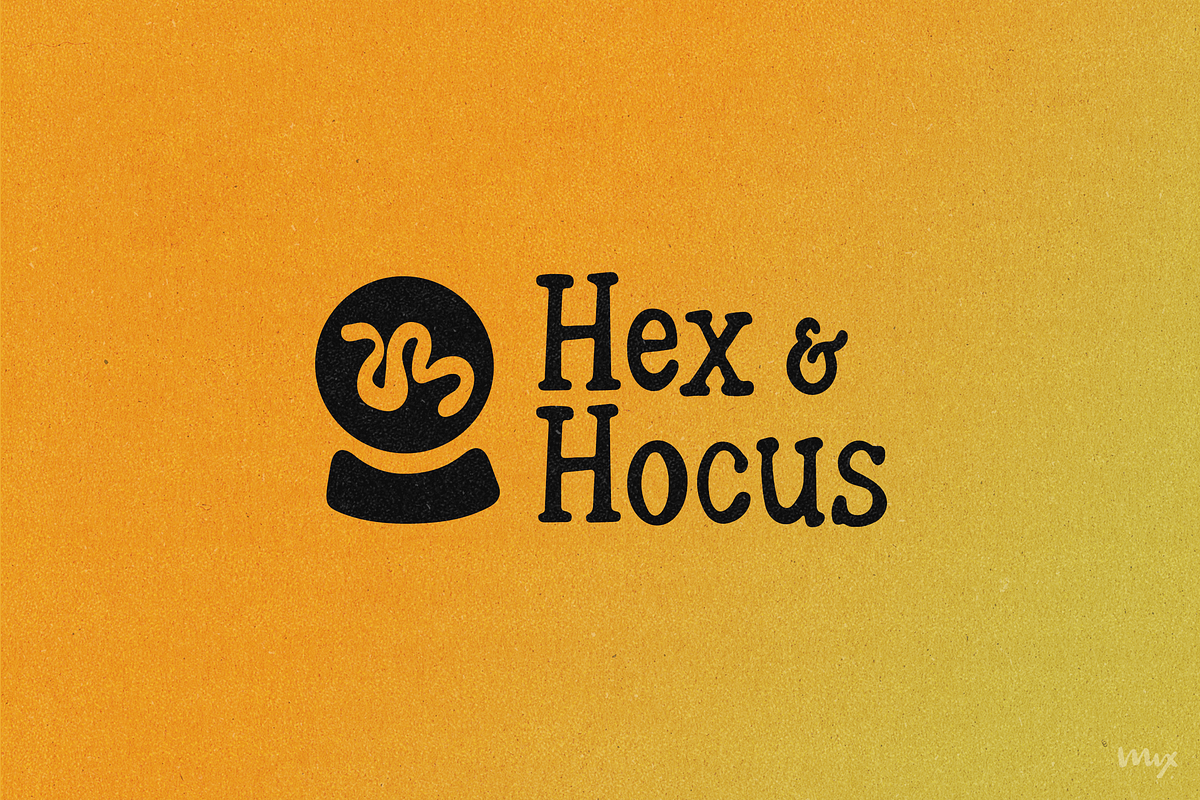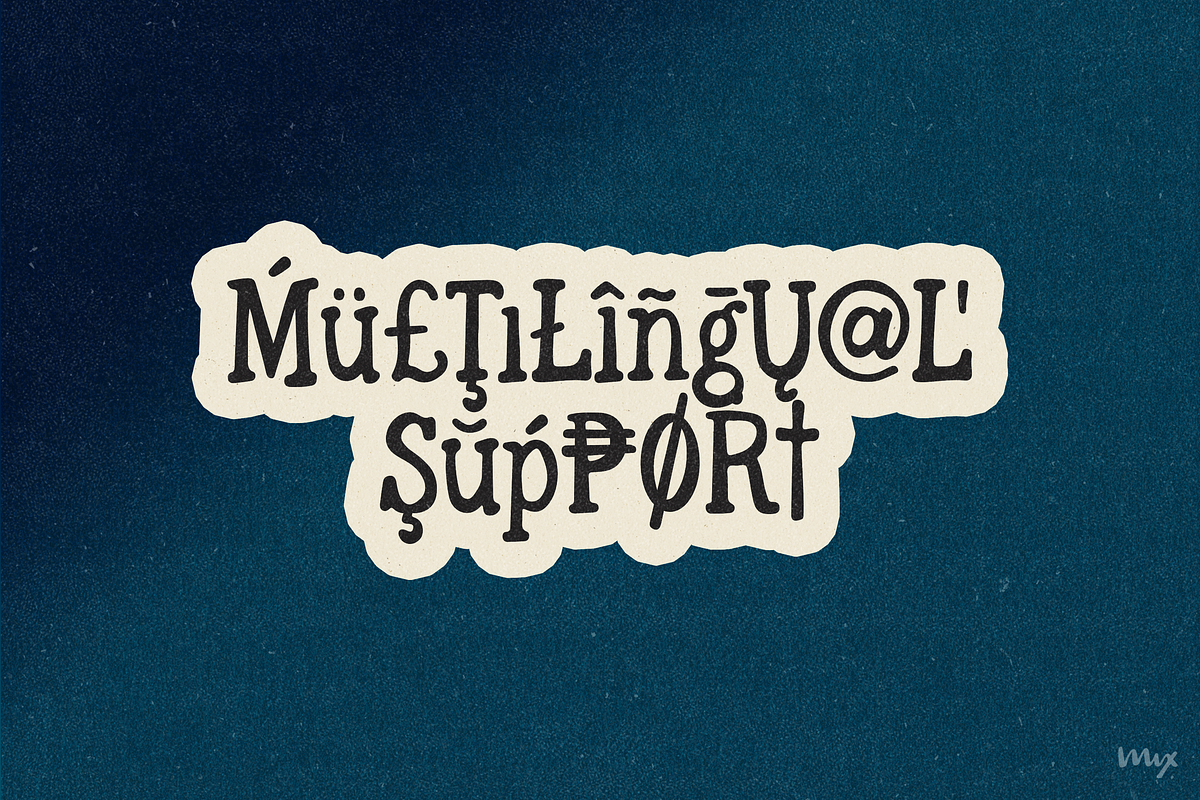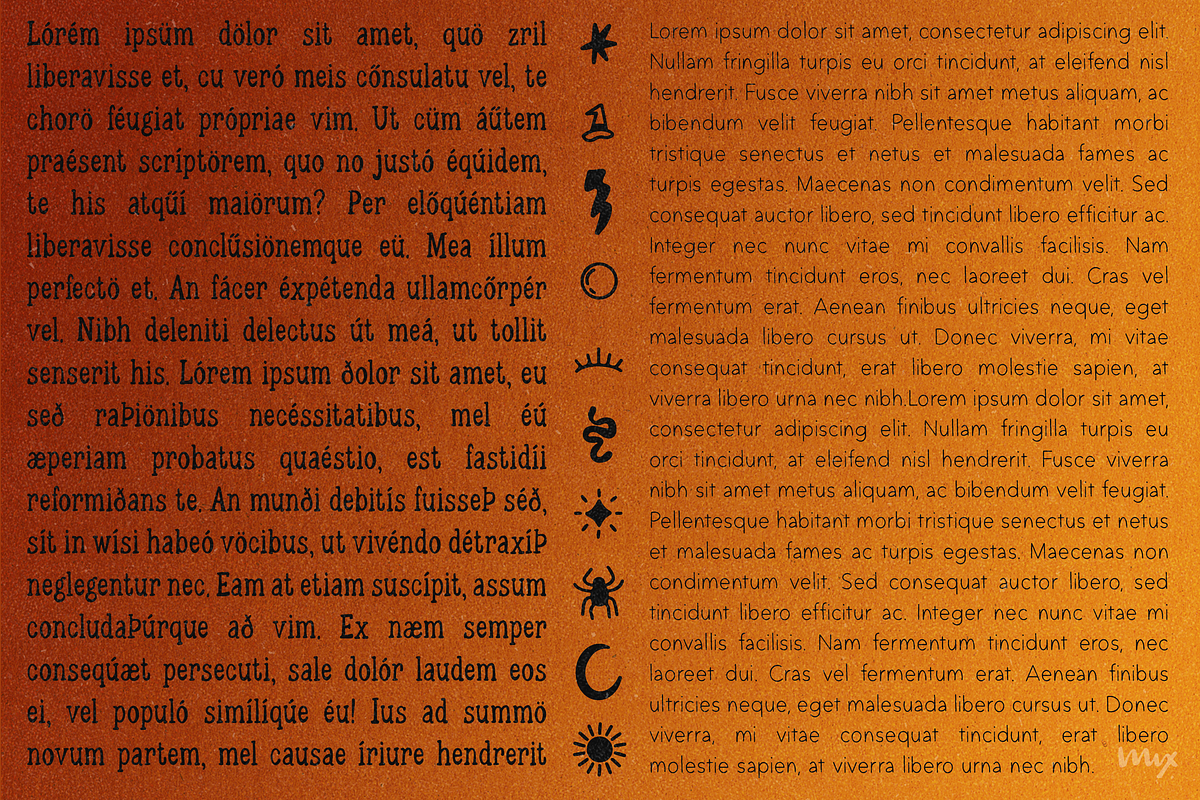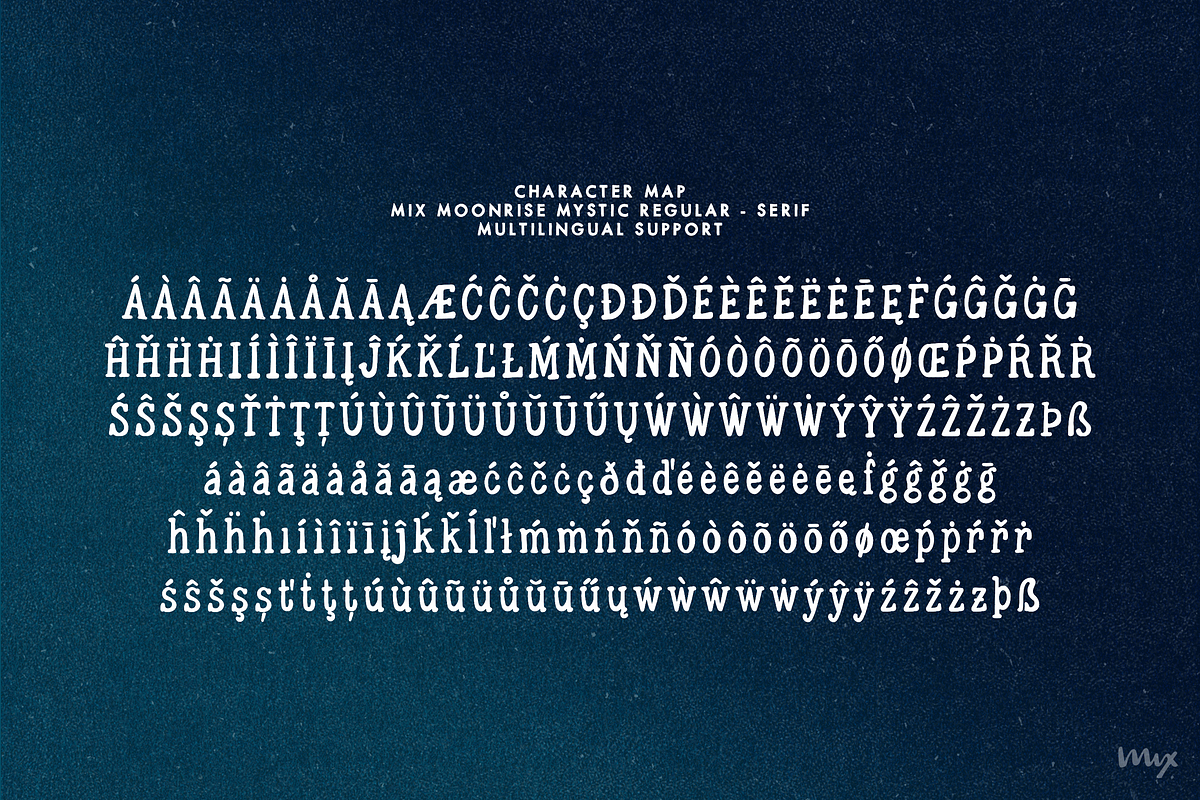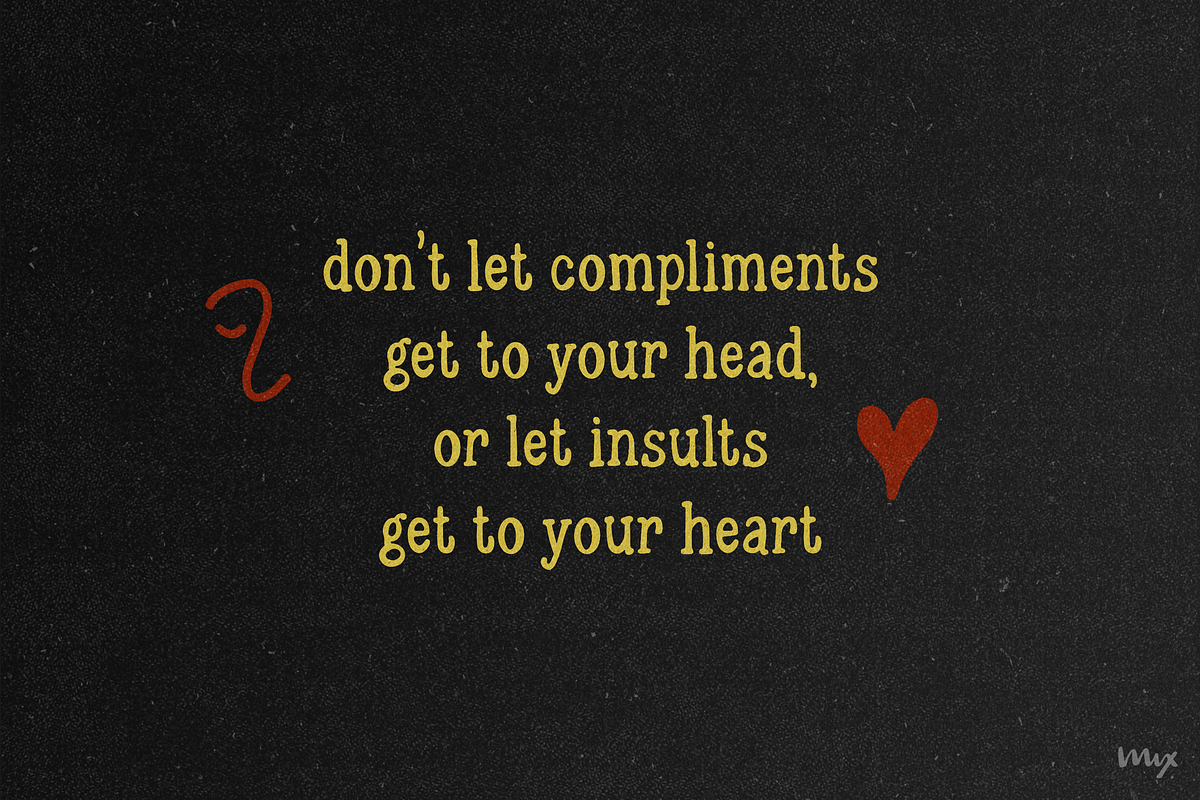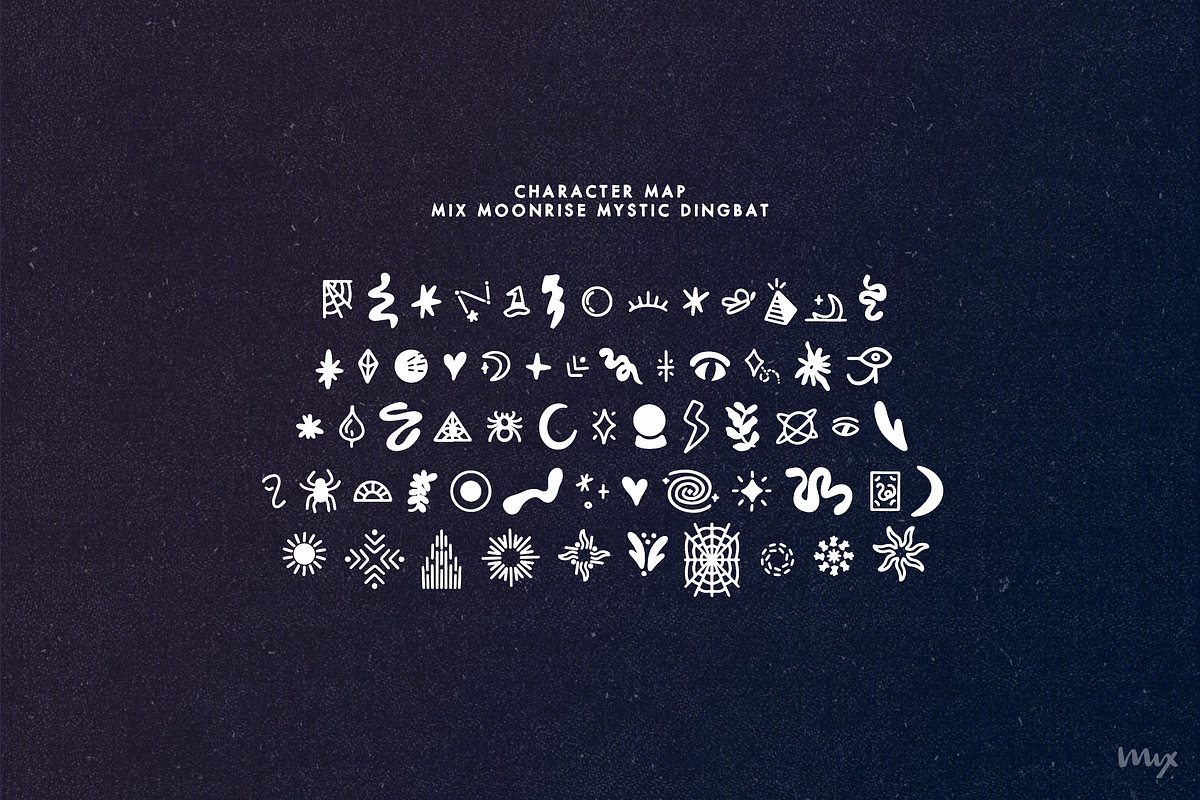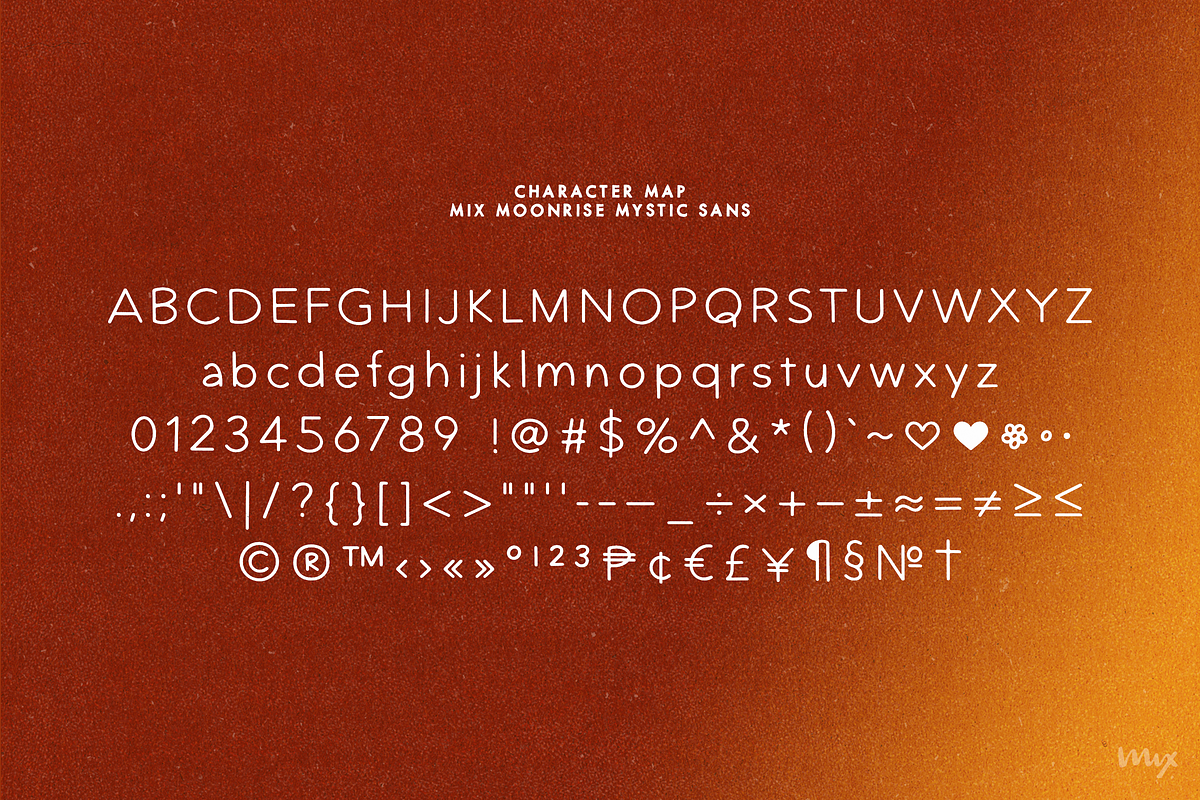
Moonrise Mystic — A Witchy Font Trio
Embark on a mystical journey with MOONRISE MYSTIC, a captivating font family inspired by the arcane and mysterious. This enchanting collection features three distinct styles: Regular (a Serif), Sans Serif, and a whimsical Dingbat. Each font exudes an eerie allure reminiscent of tarot readings, Halloween nights, and cosmic wonders, evoking the spirit of alchemy and ancient spellbooks.
Perfect for projects, brands, or themes centered around tarot, Halloween, cosmic phenomena, alchemy, and all things witchy, MOONRISE MYSTIC is a must-have for designers, small businesses, bloggers, vloggers, students, and mystic enthusiasts alike.
With multilingual support for over a hundred languages, MOONRISE MYSTIC ensures that your message can be understood across diverse audiences. Its mystical vibe and versatility, combined with the inclusion of doodle dingbats, offer endless creative possibilities. Whether for print or digital projects, MOONRISE MYSTIC shines with its hand-lettered charm and clarity as a display font.
MOONRISE MYSTIC comes with the following glyphs:
MOONRISE MYSTIC SANS comes with the following glyphs:
MOONRISE MYSTIC DINGBAT comes with the following glyphs: